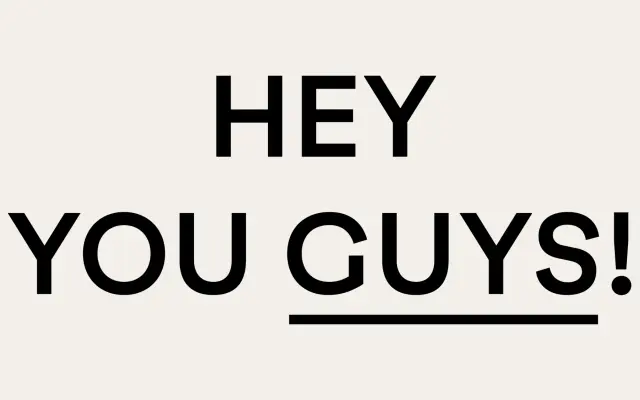
F37 Grotesc
F37 Foundry · Anaïs Lievens, Ryan Williamson, Rick Banks · 2021
A quirky display grotesque revived from Pica Sans, with an exaggerated overbite on the C and G and a companion Text cut for body copy.
A display grotesque by Anaïs Lievens, Ryan Williamson and Rick Banks, born from a serious case of overbite on Pica Sans, a quirky old grotesque F37 found in a specimen book. They exaggerated the overbite on caps C and G and lowercase c, g and s, and steadied the rest with cues from Breite Grotesk, a late 19th-century German sans. Fourteen styles run across seven weights from Thin to ExtraBold with matching italics. Best for editorial, music and culture work that wants a sans with a smirk; pair with F37 Grotesc Text for body copy.
F37 describes Grotesc as a quirky grotesque inspired by the wonderful Pica Sans, with a huge overbite on the cap C that almost looks like an O. The rest of the design takes cues from Breite Grotesk, a late 19th-century German sans. Sits in display registers, with F37 Grotesc Text as a more legible text companion.